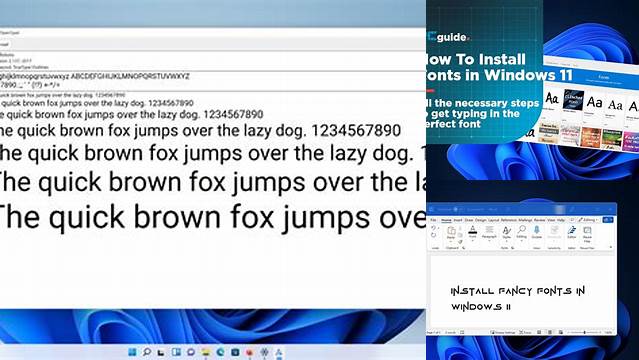
1. Understanding Windows 11 Default Fonts
Before we jump into downloading new fonts, let's quickly touch on the default fonts that come pre-installed with Windows 11. These fonts are carefully chosen to provide a consistent and readable experience across the operating system. Some of the most common default fonts include Segoe UI, which is used extensively throughout the Windows 11 interface, and Arial, a widely recognized and versatile sans-serif font. Understanding these default fonts helps you appreciate the changes and enhancements that new fonts can bring. By familiarizing yourself with the standard typography, you can better identify the fonts that will best suit your specific needs and preferences. Moreover, knowing the characteristics of the default fonts allows you to make informed decisions when selecting alternatives, ensuring that your chosen fonts maintain readability and visual harmony within your Windows 11 environment. Consider experimenting with different font sizes and styles within the default set to see how they affect the overall look and feel of your system. This exploration can guide you in selecting the perfect additional fonts to complement your existing setup.
2. Why Download Fonts for Windows 11?
So, why would you even want to download fonts for Windows 11? Well, the default fonts are great, but they can get a little boring after a while. Downloading new fonts allows you to personalize your system and express your unique style. Imagine creating documents, presentations, or even social media posts with fonts that truly reflect your personality! Plus, different projects often require different fonts. A sleek, modern font might be perfect for a business presentation, while a whimsical, handwritten font could be ideal for a birthday invitation. The possibilities are endless! Downloading fonts expands your creative toolkit and allows you to tailor your work to specific audiences and purposes. Whether you're a graphic designer looking for the perfect typeface or a student wanting to make your essays stand out, having a variety of fonts at your disposal is incredibly valuable. Don't limit yourself to the default options – explore the vast world of typography and discover fonts that inspire you and elevate your work. Embracing new fonts can transform your digital creations and make them truly unique.
7. Installing Fonts on Windows 11
Okay, this is where the magic happens! There are a couple of ways to install fonts on Windows 11. The easiest way is to simply right-click on the font file (.ttf or .otf) and select "Install" from the context menu. Another way is to open the Settings app (Windows key + I), go to "Personalization," then "Fonts." Drag and drop the font files into the "Add fonts" area. Windows 11 will automatically install the fonts for you. After the installation is complete, the fonts will be available for use in all your applications. You can verify that the fonts are installed correctly by opening a program like Microsoft Word and checking the font list. Installing fonts is a straightforward process, but it's important to follow the steps carefully to ensure that the fonts are properly installed and available for use. With your new fonts installed, you can start experimenting and creating stunning designs!
8. Alternative Installation Methods
Besides the standard methods, there are a few alternative installation methods you can try. For example, you can create a Fonts folder in your Windows directory (usually C:\Windows\Fonts) and simply copy the font files into that folder. Windows will automatically detect and install the fonts. Another method is to use a font management tool. These tools can help you organize, activate, and deactivate fonts as needed. They're especially useful if you have a large collection of fonts. Some popular font management tools include NexusFont, FontBase, and RightFont. Exploring alternative installation methods can provide you with more flexibility and control over your font management. These methods can be particularly helpful if you're experiencing issues with the standard installation process or if you need to manage a large number of fonts efficiently.
9. Troubleshooting Font Installation Issues
Sometimes, things don't go as planned. If you're having trouble installing fonts, don't panic! Here are a few things you can try: First, make sure the font file is not corrupted. Try downloading it again from a different source. Second, restart your computer. This can often resolve minor installation issues. Third, check if the font is already installed. Windows won't install a font if it already exists. Fourth, try installing the font as an administrator. Right-click on the font file and select "Run as administrator." If none of these solutions work, you might need to seek help from a technical support forum or a professional. Troubleshooting font installation issues can be frustrating, but with a little patience and persistence, you can usually find a solution. Remember to check the font file, restart your computer, and try installing the font as an administrator.